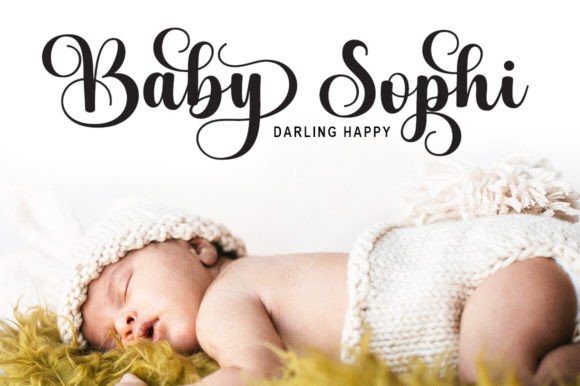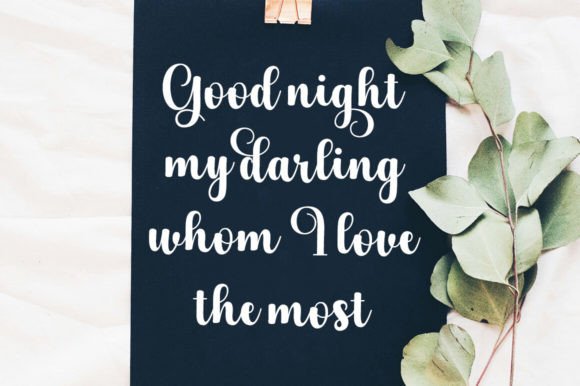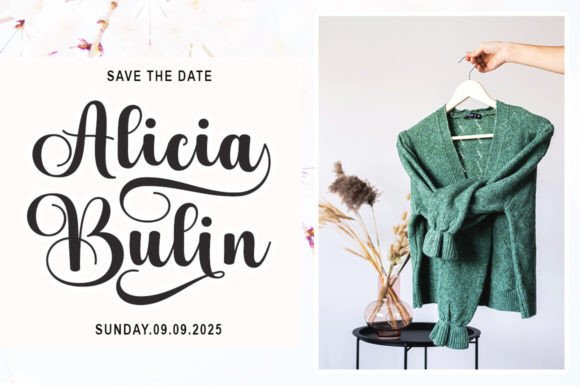
About the Baby Disney Font
Elevate your designs with Baby Disney Font, a font that combines sophistication with readability. Baby Disney feels equally charming and elegant. This stunning script font is a stylish homage to classic calligraphy. It will elevate any design project to the highest level, be it branding, titles, wedding designs, invitations, signs, logos, labels and more!
Baby Disney’s elegant charm makes it ideal for headlines, short text blocks on invitations or branding materials, and logos where a touch of classic sophistication is desired. It shines in applications requiring visual impact, such as signage or packaging for high-end products. However, its intricate details make it unsuitable for body text or UI elements, where readability is paramount. Avoid using it in long paragraphs or small sizes.
Pairing Baby Disney with a clean sans-serif like Helvetica Neue for body copy creates a strong contrast and enhances readability. For a more playful feel, consider pairing it with a rounded geometric sans-serif such as Futura. A classic serif like Garamond offers a sophisticated complement, maintaining a consistent level of elegance.
The font exudes a friendly yet refined personality, suitable for brands targeting a sophisticated yet approachable audience. Its inherent elegance lends itself to luxury goods, boutique businesses, or projects emphasizing craftsmanship and tradition.
Baby Disney Font Usage Examples
Baby Disney Font Example